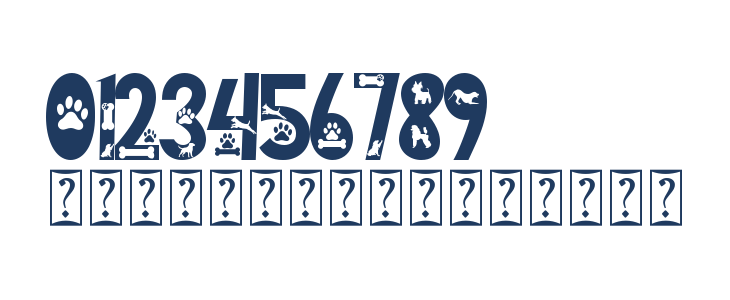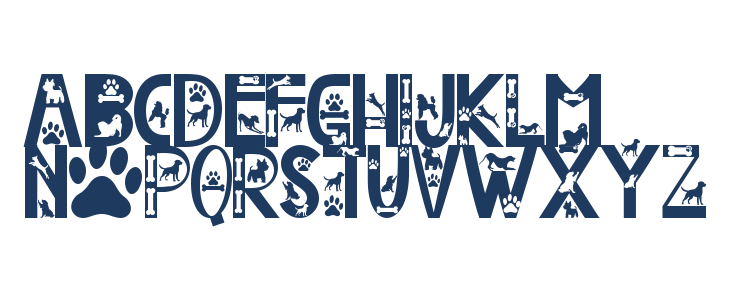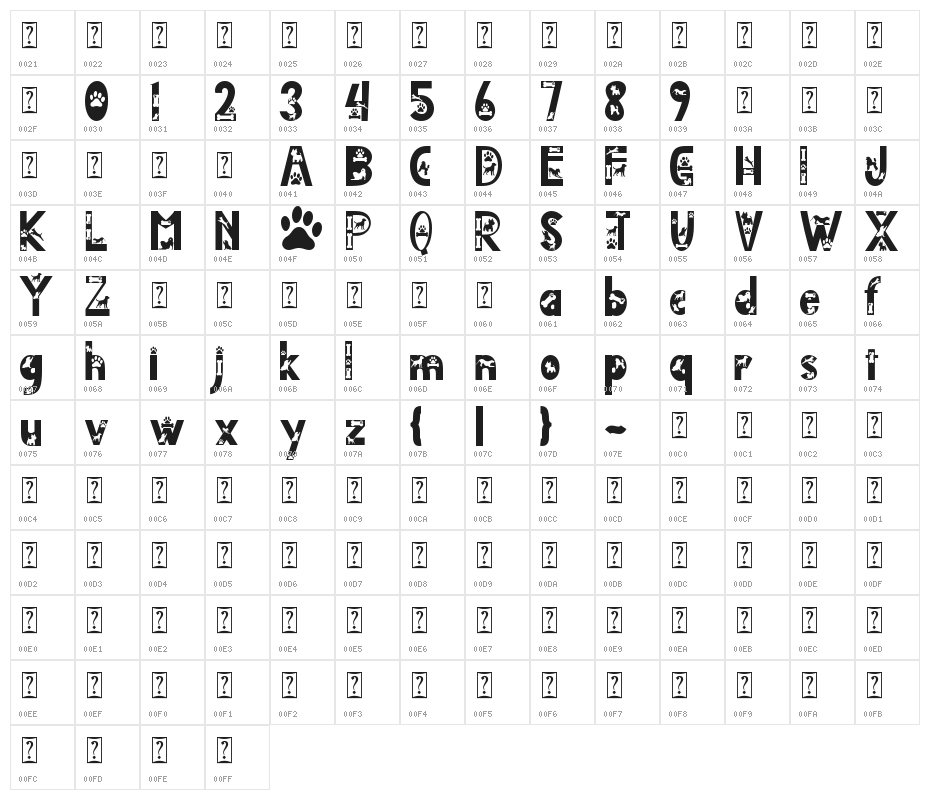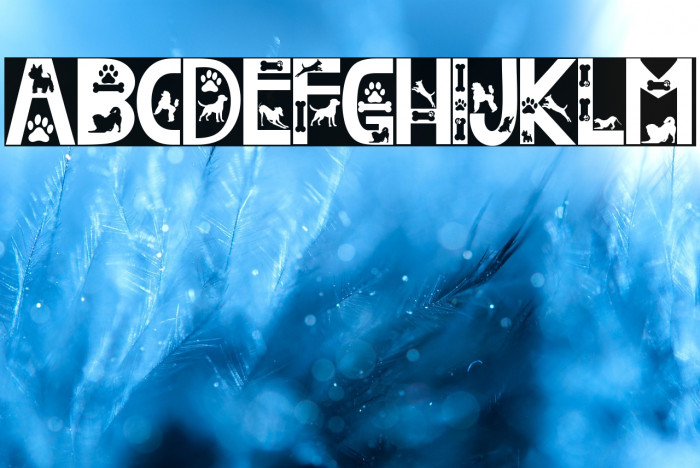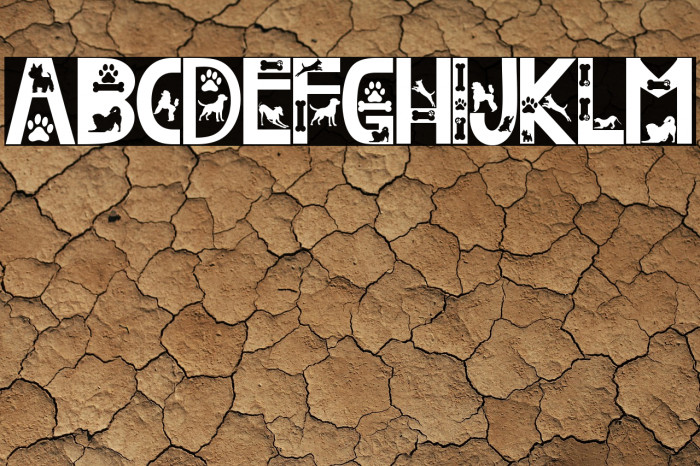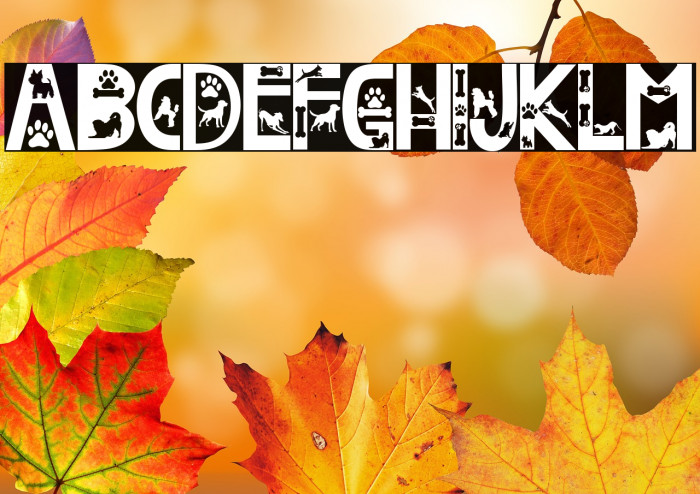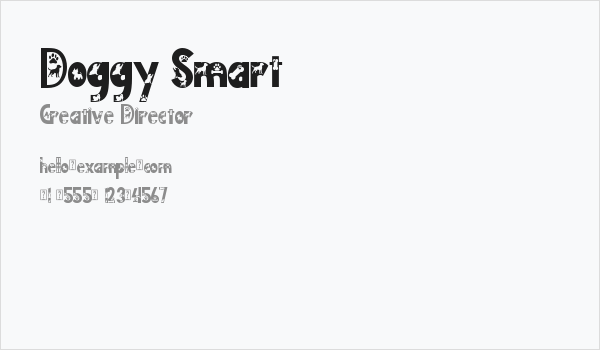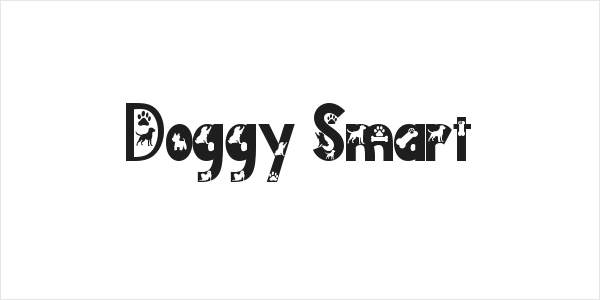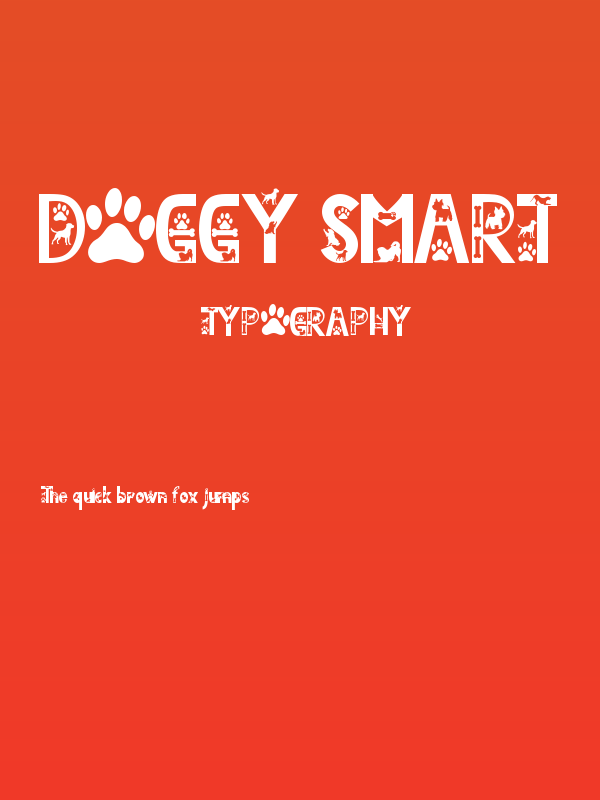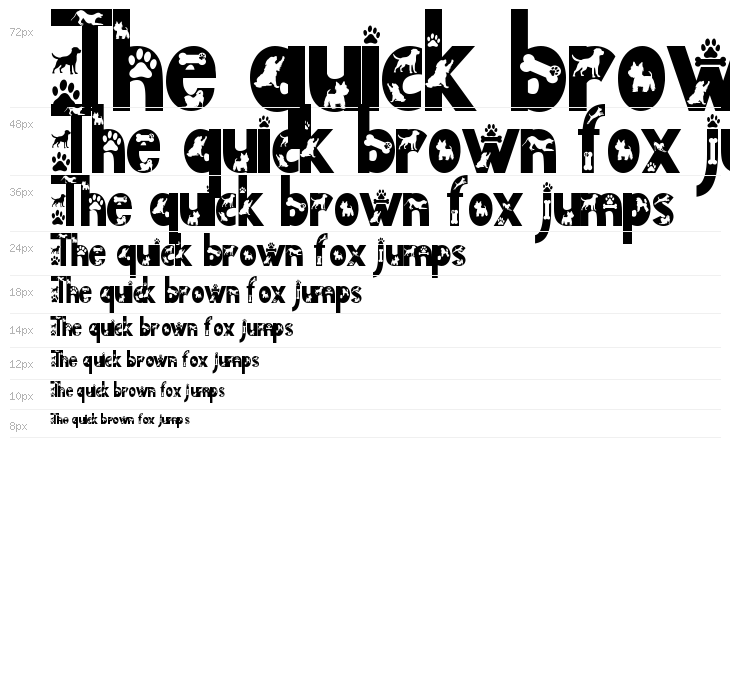
Doggy Smart Font
Doggy Smart Description
A bold, decorative display font featuring uppercase, lowercase letters, numbers, and symbols filled with playful dog and bone silhouettes, paw prints, and other dog-related icons.
| Overall Style | Playful, Thematic, Decorative |
| Use Case | Headlines, Logos, Thematic Titles |
| Proposed Projects | Pet-related branding, childrenΓ’β¬β’s books, animal shelters, veterinary clinics, pet product packaging, and playful event posters. |